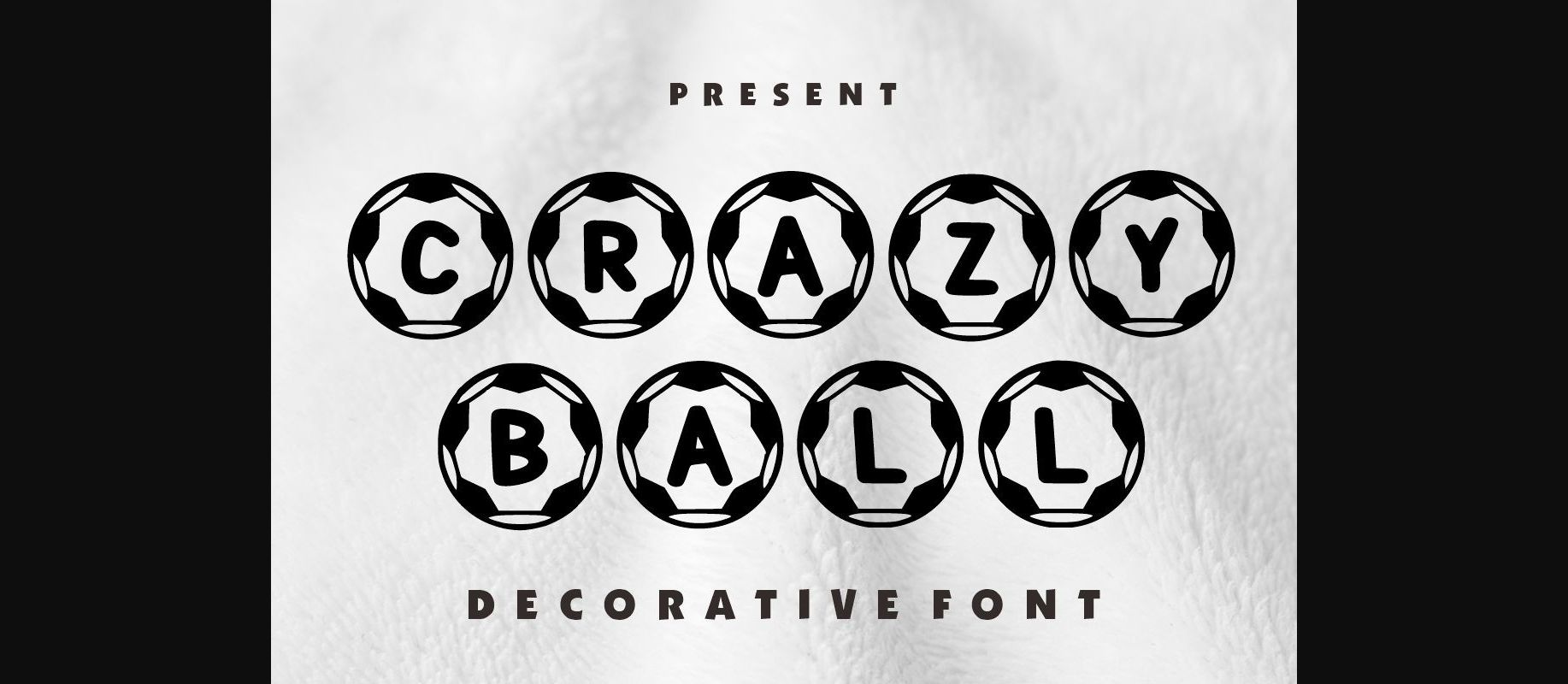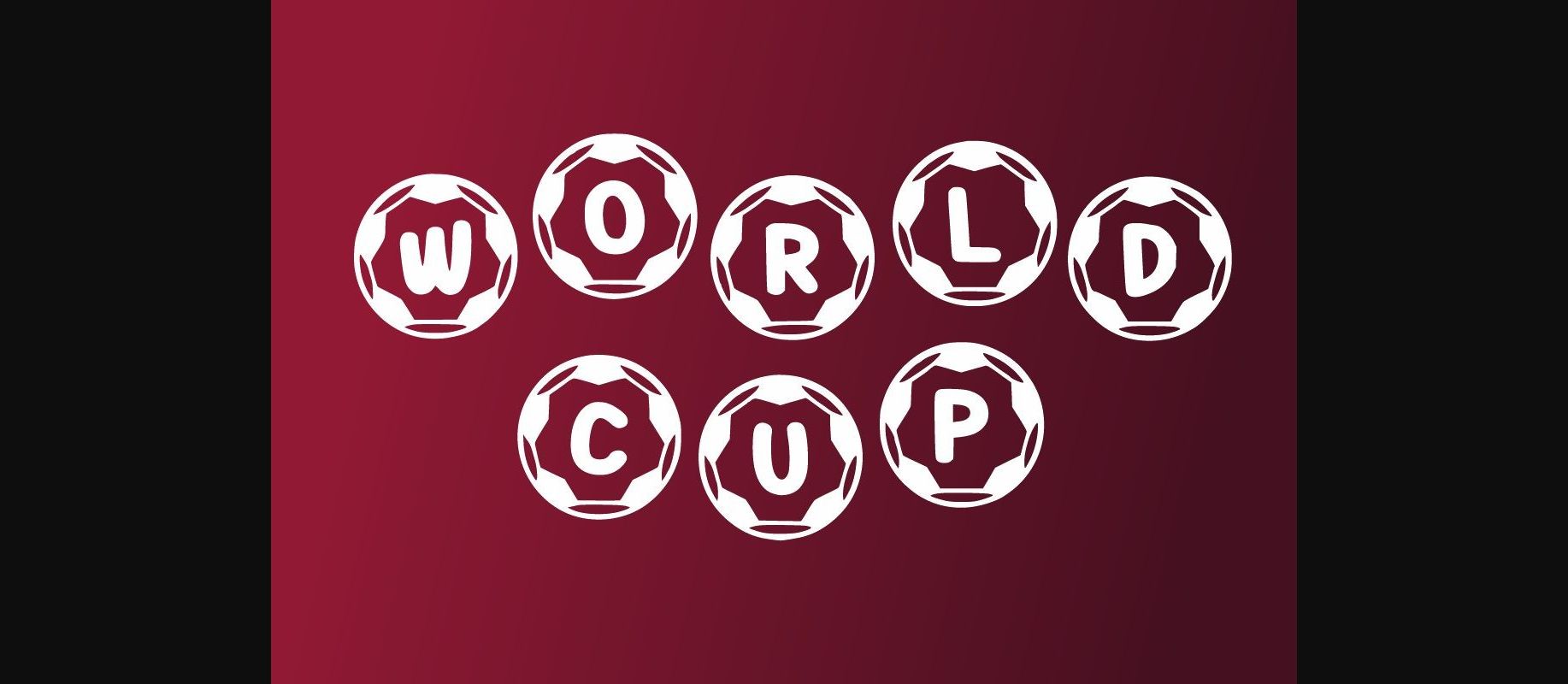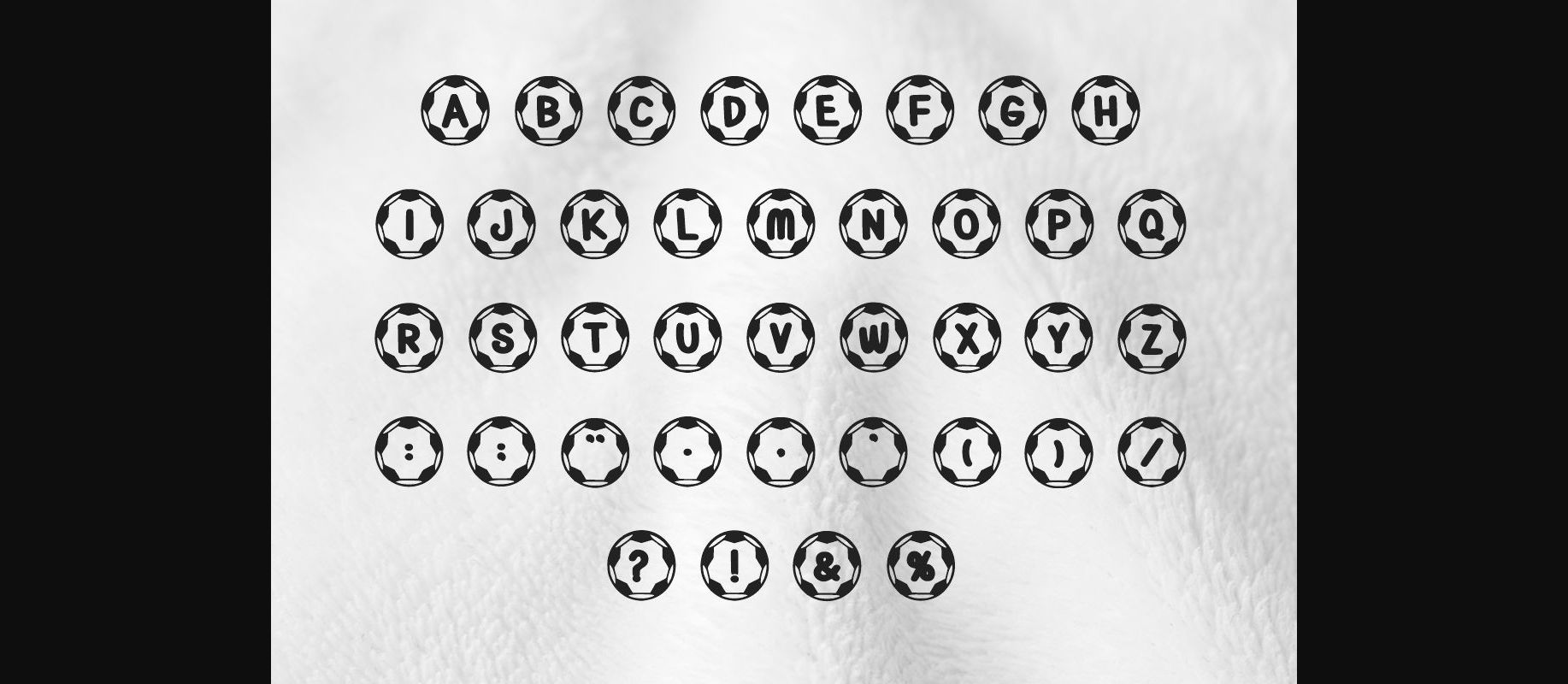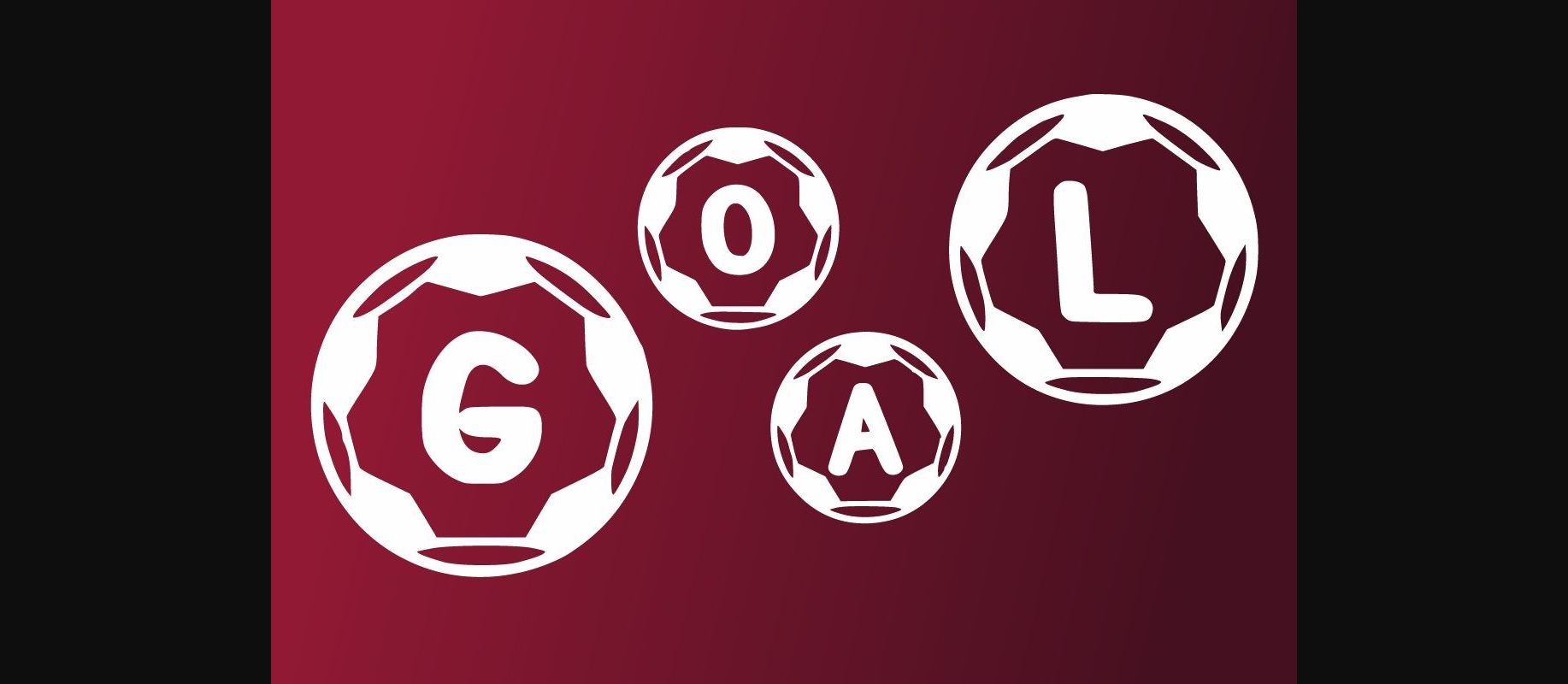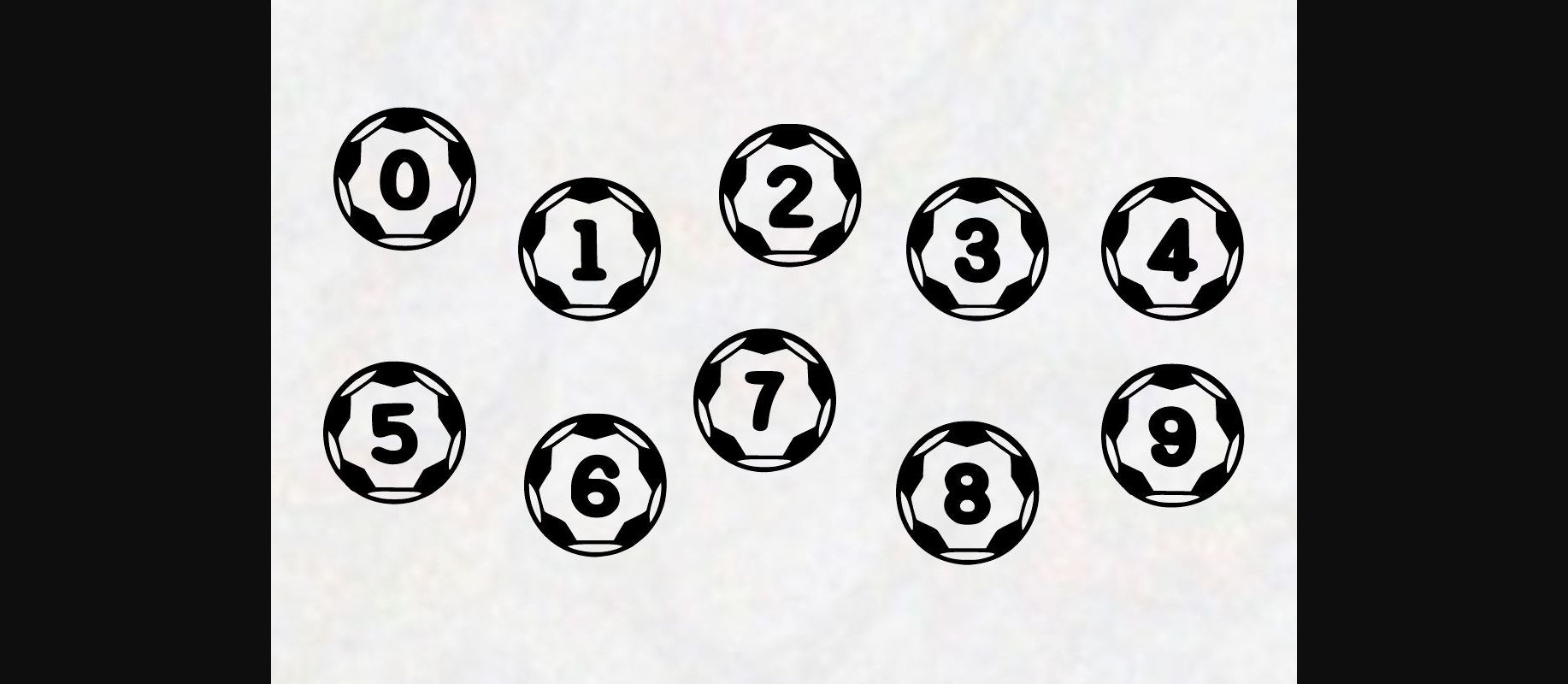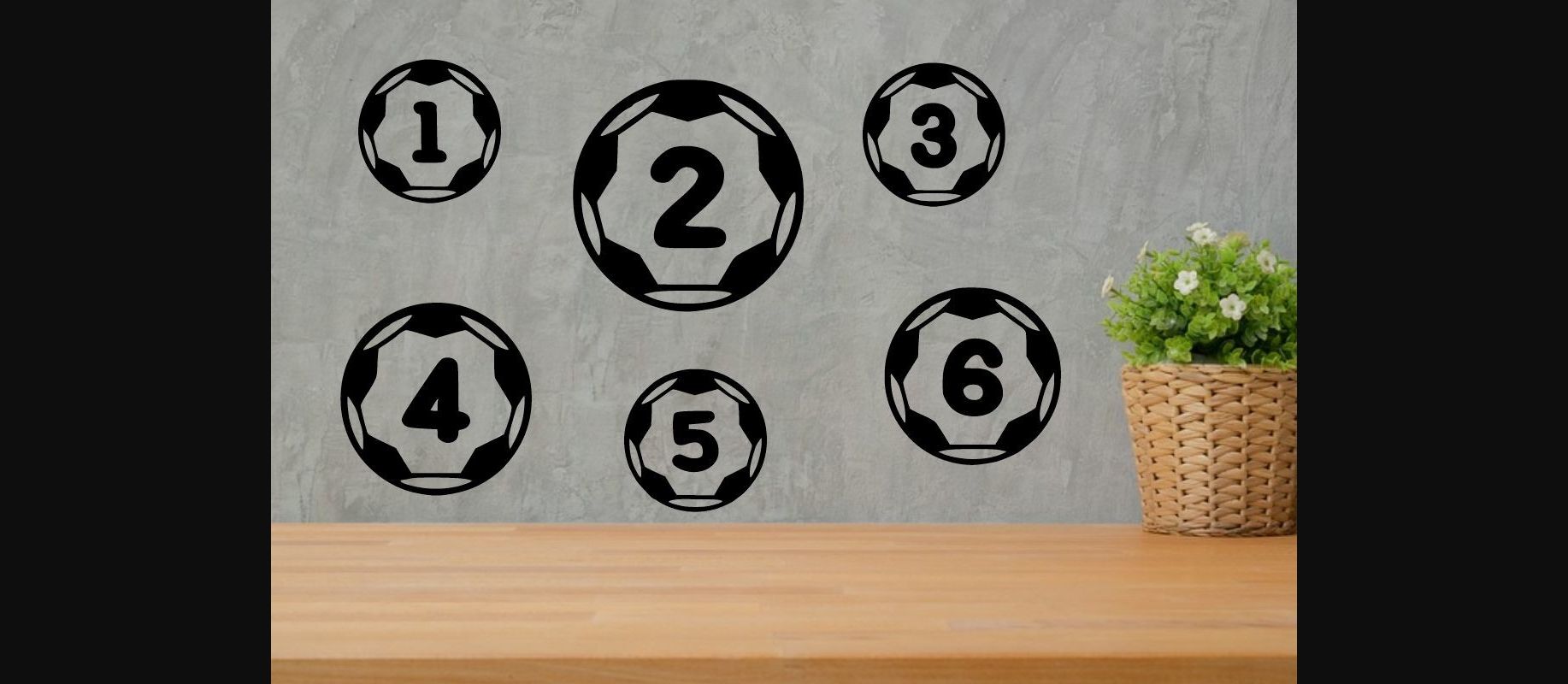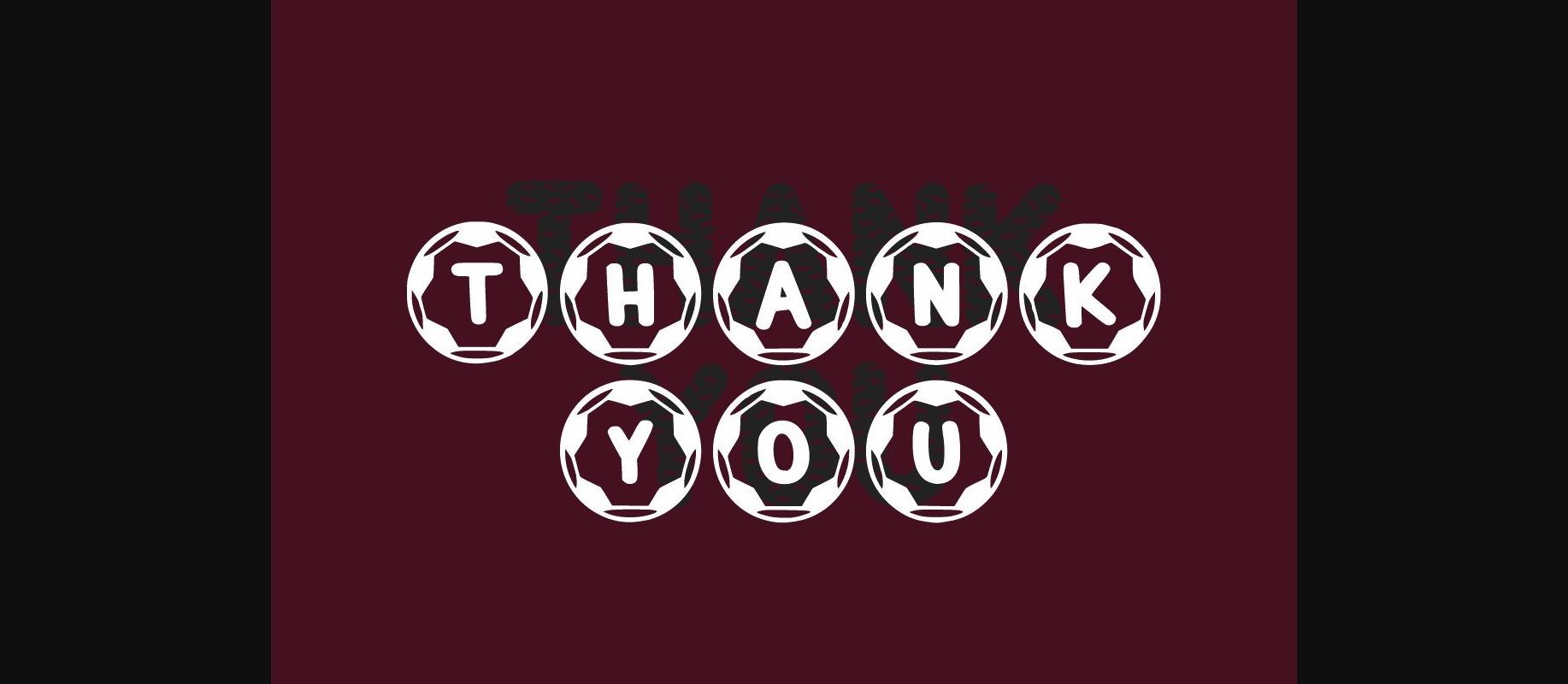
HomeDecorative FontsCrazy Ball Font Decorative Fonts Crazy Ball Font FacebookXPinterestWhatsApp 1 of 9 ... Crazy Ball Font Poster 2... Crazy Ball Font Poster 3... Crazy Ball Font Poster 4... Crazy Ball Font Poster 5... Crazy Ball Font Poster 6... Crazy Ball Font Poster 7... Crazy Ball Font Poster 8... Crazy Ball Font Poster 9... About Crazy Ball Font Crazy Ball is a fun and cool decorative font. Add it to your sports-related designs, and you will love the results! DOWNLOAD NOW People also explored Carol Adelina Font Yoga Woman Font Healthy Font Butterfly Font Scarleft Font Bloonder Font Impatiens Font Simple Font Anindya Meita Font 601 0 TagsCrazy Ball Font Previous articleSnowing Cold Outside FontNext articleDog Font LEAVE A REPLY Cancel reply Comment: Please enter your comment! Name:* Please enter your name here Email:* You have entered an incorrect email address! Please enter your email address here Website: Save my name, email, and website in this browser for the next time I comment. Personal Use Free Orchid Personal Use Free Read more about this font Kumadinya Personal Use Free Read more about this font Love Heart Personal Use Free Read more about this font Fontmageddon Personal Use Free Read more about this font BLOG Free vs Paid Fonts: Why Investing in Premium Fonts Is Worth It Free vs Paid Fonts: Why Premium Fonts Are Worth It in 2025 The debate of free vs paid fonts continues in the design world. While... Top 10 Handwritten Fonts That Elevate Your Designs Modern Sans-Serif Fonts That Brands Love in 2025 Free Fonts Risk: Why Free Fonts Can Be Dangerous for Designers